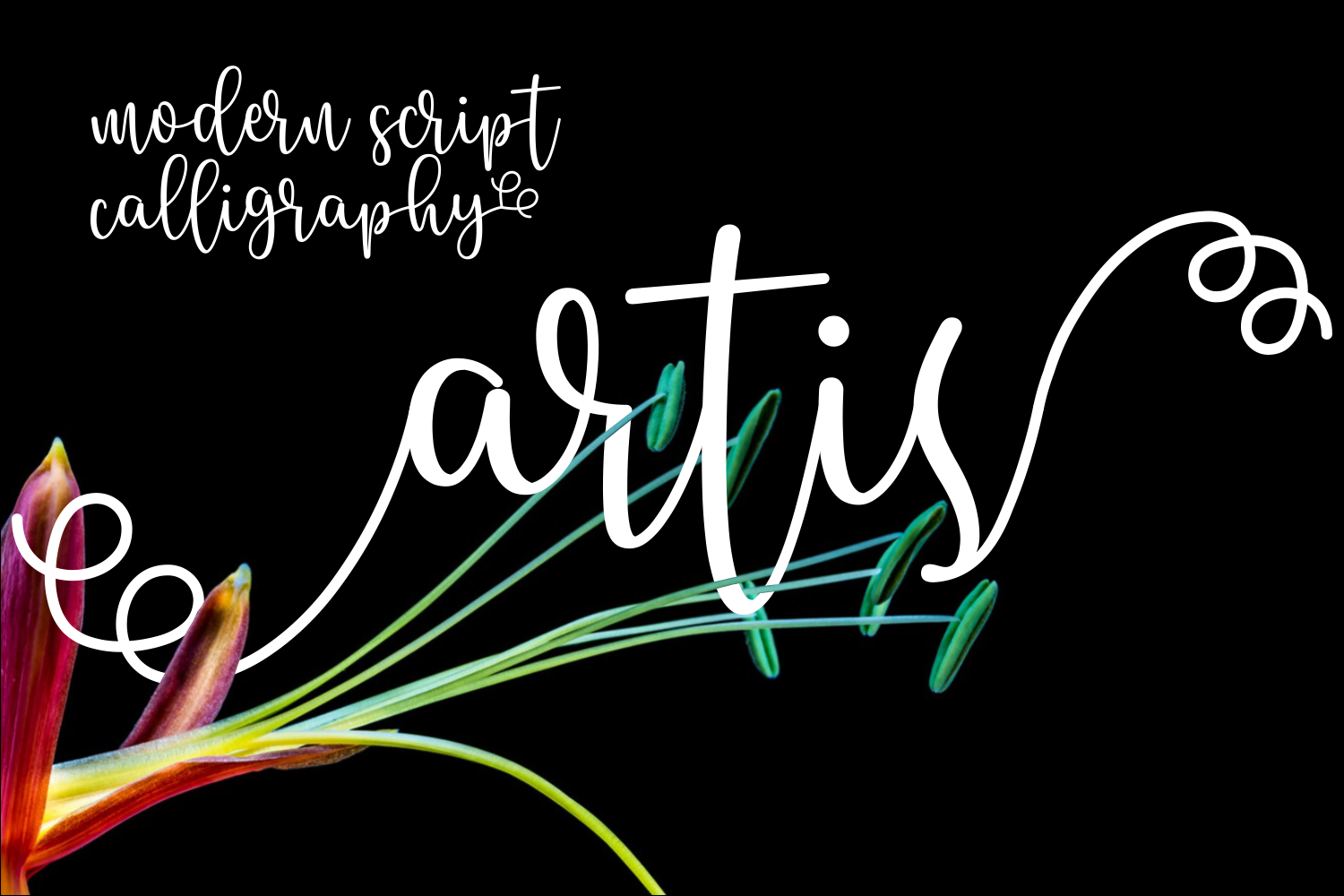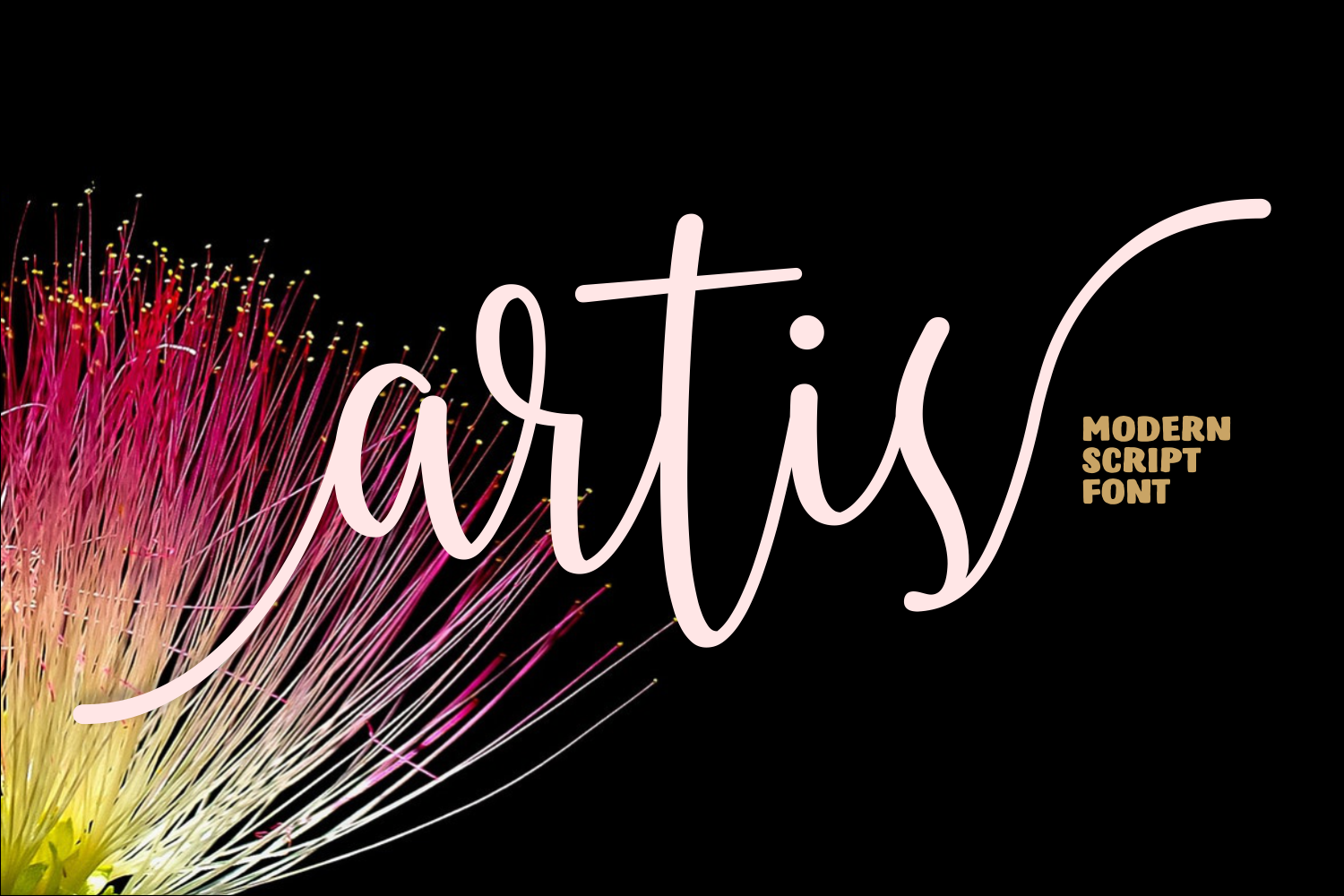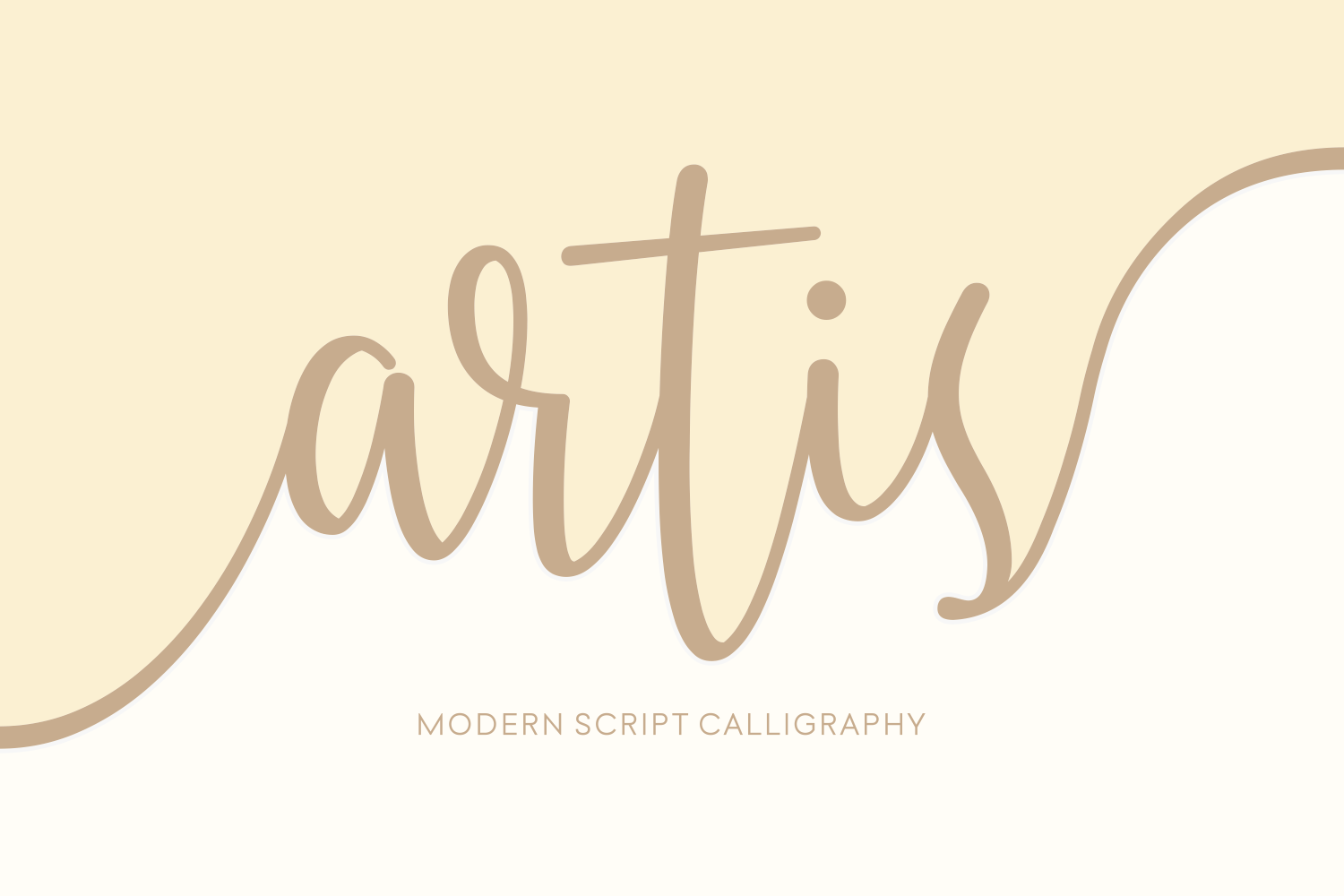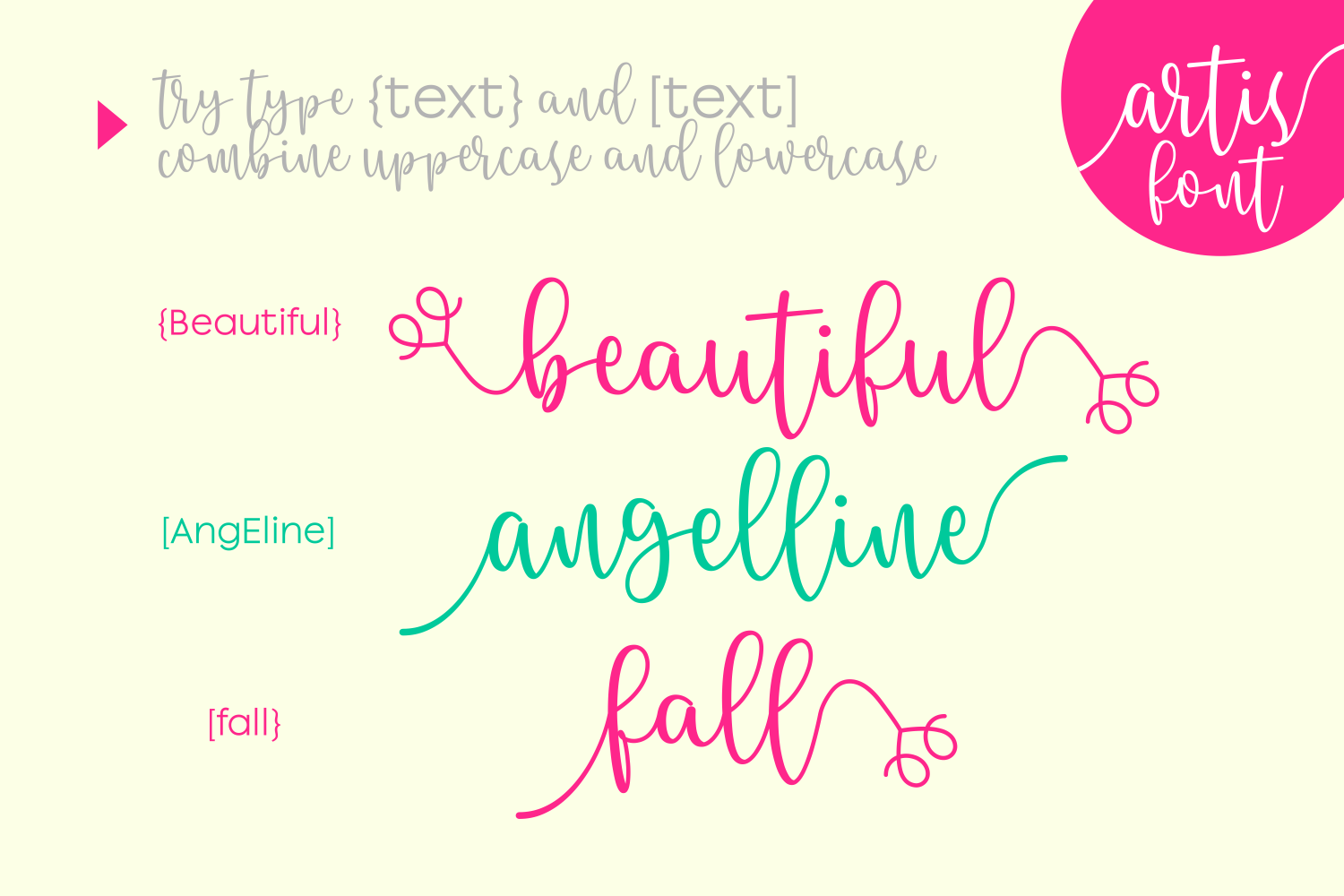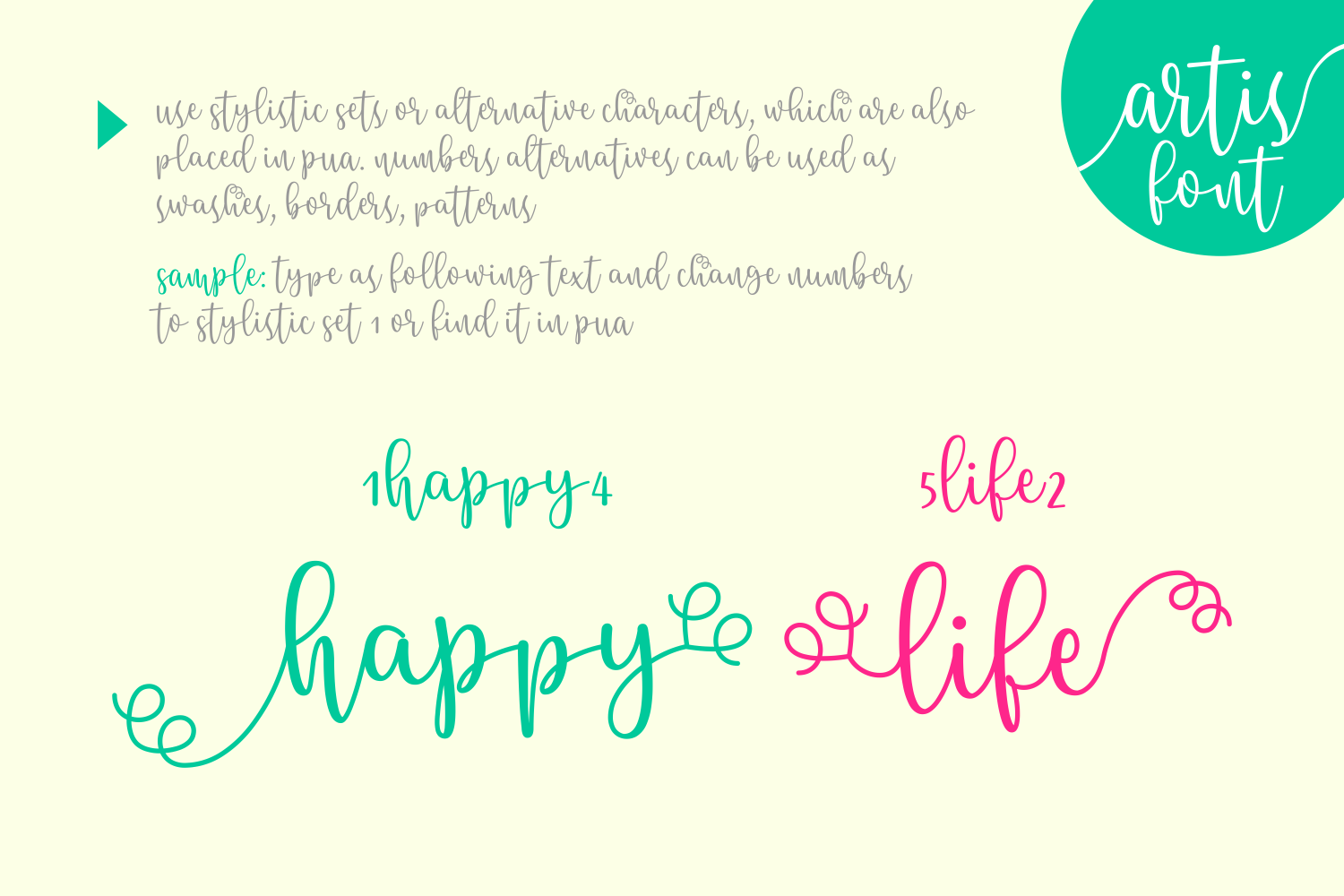
Artis Font
About Artis Font
Artis is a soft, free-flowing font.
This hand drawn font features easy to use swashes. Simply add { } or [ ] to your text to add stunning swashes. You can enter the following examples in the preview box below:
[creative]
{creative}